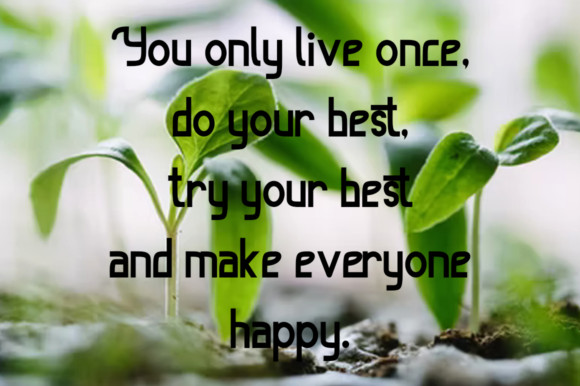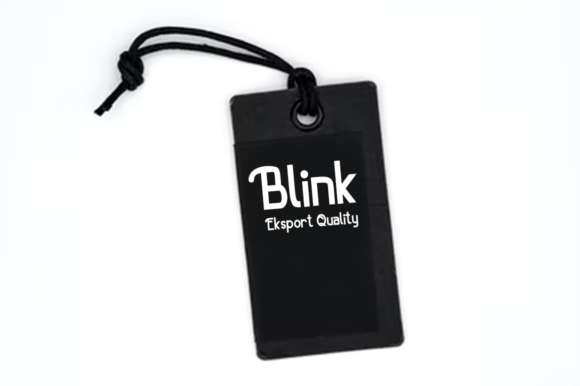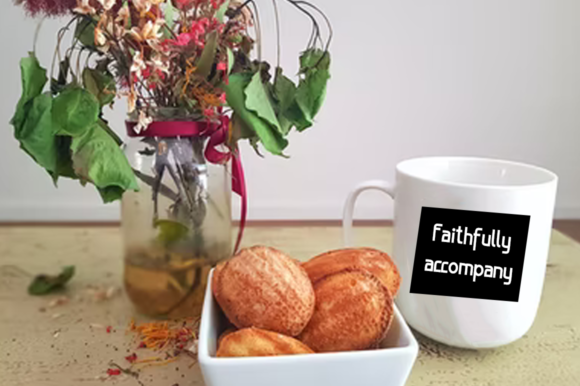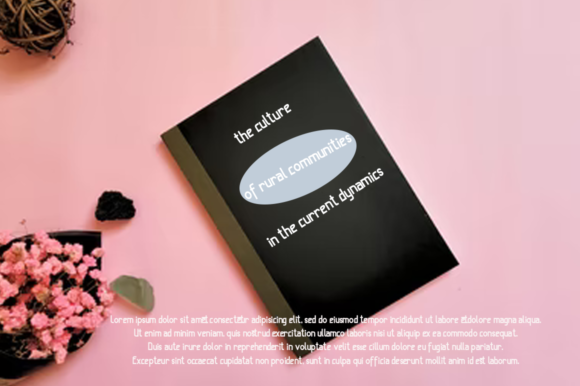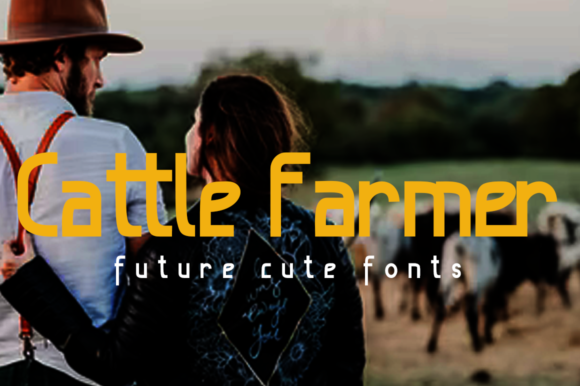
Get Ready to Mooo-ve Your Designs Forward
You know that feeling when you’re brainstorming ideas for a new project, and suddenly a spark of creativity hits you? That’s exactly what happened when we stumbled upon the Cattle Farmer Font. Its chic and cute design instantly caught our attention, and we knew we had to share it with the design community.
Whether you’re creating posters, flyers, or prints, Cattle Farmer Font is the perfect addition to your design arsenal. This versatile font is designed to add a touch of personality to your work, making it stand out from the crowd. As a designer, you know how valuable it is to have a font that can elevate your designs and make them truly unforgettable. With Cattle Farmer Font, you’ll be able to explore endless possibilities and take your designs to the next level.
Cattle Farmer Font Key Features
- Font Size: 4,000+ glyphs, with extensive support for Latin, Greek, and Cyrillic scripts
- Unique Characteristics: Hand-drawn, rustic design with a vintage feel, ideal for agricultural, rural, or country-themed projects
Cattle Farmer Font Review
At first glance, the Cattle Farmer Font seems like a quirky addition to any design project. Here’s my honest take on this unusual font.
- The font’s unique character is a major strength. It’s a great conversation starter and can add some personality to a design.
- The font is well-structured, with clear lines and a clear hierarchy of information.
- The font is suitable for headings and titles, where its boldness and whimsy can shine.
- The font may be too bold or overwhelming for some projects, particularly those that require subtlety or nuance.
- The font’s unique character may not translate well to smaller text sizes or body copy.
- The font may not be suitable for projects that require a more traditional or conservative look.
Overall, the Cattle Farmer Font is a fun and quirky addition to any design project. While it may have some limitations, it’s a great choice for projects that require a bold and playful touch.
For optimal results, use the Cattle Farmer Font in conjunction with rustic or country-themed designs. Experiment with different font sizes and styles to create a visually appealing layout.
The Cattle Farmer Font is ideal for:
- Ranch or farm branding
- Agricultural event invitations
- Country-themed posters or flyers